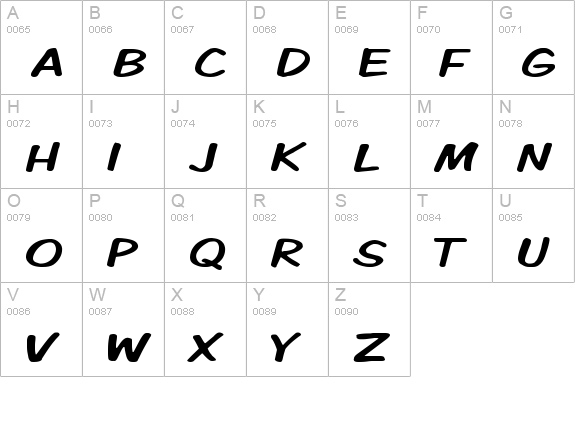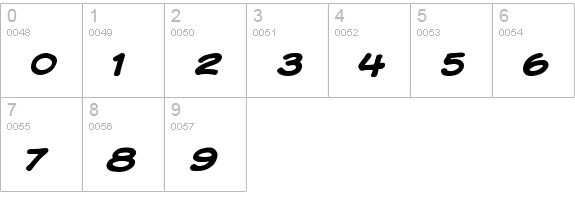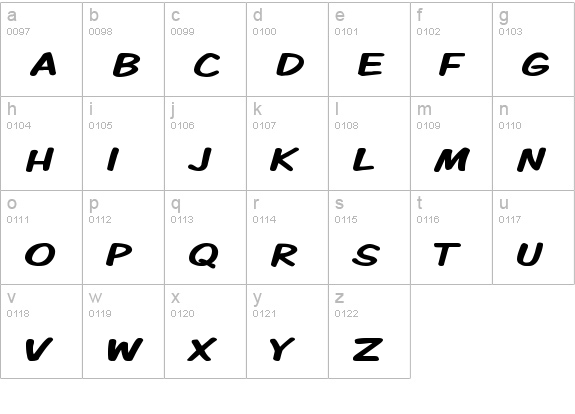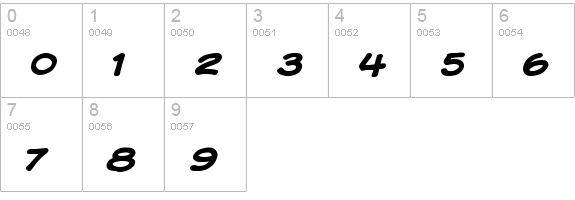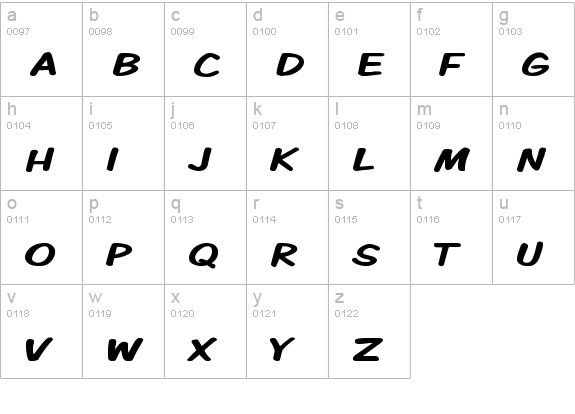
Komika Display Kaps Wide is a distinctive, extended-width variant in the Komika typeface family \xE2\x80\x94 well suited to design and typography projects.
Komika Display Kaps Wide is a bold and eye-catching display font that is perfect for making a statement in your designs. With its wide, uppercase letterforms and playful, comic book-inspired style, this font is sure to grab attention and add a touch of whimsy to any project. The generous spacing between characters gives it a modern and clean look, making it ideal for headlines, posters, logos, and more. What makes Komika Display Kaps Wide even more appealing is that it is available for free download at FontsMarket.com. This means that you can easily access this unique and versatile font to enhance your creative projects without any cost. Whether you're a designer looking to add some personality to your work or a hobbyist looking for a fun font to play with, Komika Display Kaps Wide is a fantastic choice that won't break the bank. Download it today and let your creativity soar with this free and fabulous font!